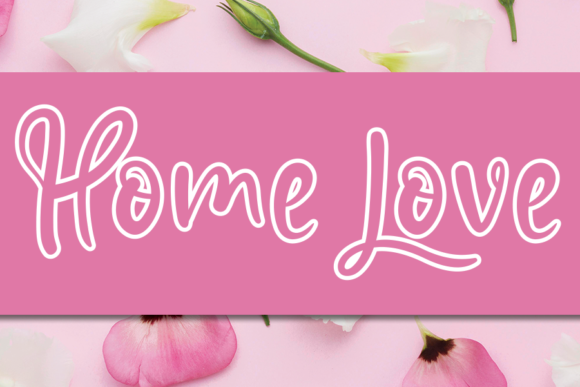
Step into the world of Home Love Font, a captivating script font family that exudes elegance and charm. Crafted with meticulous care by the talented andikastudio, this font is a delightful dance of letters, ready to transform your designs into works of art.
Immerse yourself in the enchanting beauty of Home Love Font. Its graceful curves and delicate strokes evoke a sense of warmth and intimacy, making it the perfect choice for branding, headings, wedding designs, invitations, signatures, logos, labels, and more. With Home Love Font, your creations will radiate a touch of sophistication that is sure to captivate and inspire.
Unleash your creativity and let Home Love Font take center stage. Its versatility knows no bounds, allowing you to effortlessly elevate your designs to new heights. Whether you're creating stunning banners, eye-catching social media posts, or personalized invitations, Home Love Font will add a touch of magic to every project.
With Home Love Font, you'll never have to compromise on style or functionality. Its carefully crafted characters ensure legibility, while its elegant design adds a touch of timeless sophistication to any project. Experience the joy of designing with a font that not only enhances your aesthetics but also ensures your message is conveyed with clarity and impact.
So, embark on a creative journey with Home Love Font and witness the transformation of your designs into captivating masterpieces. Let its enchanting charm and versatility ignite your imagination and create projects that leave a lasting impression.